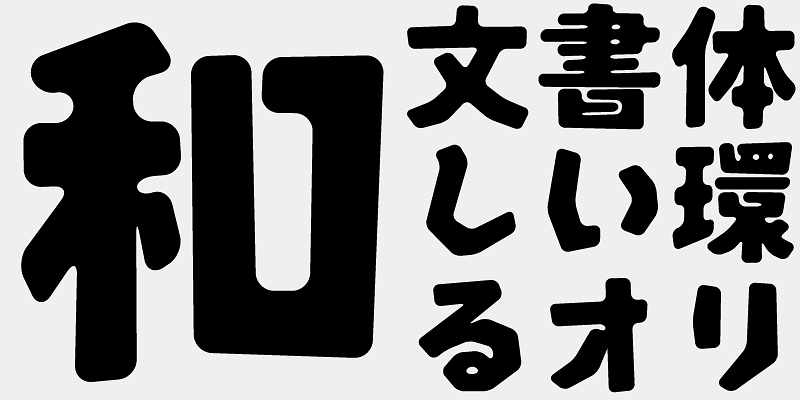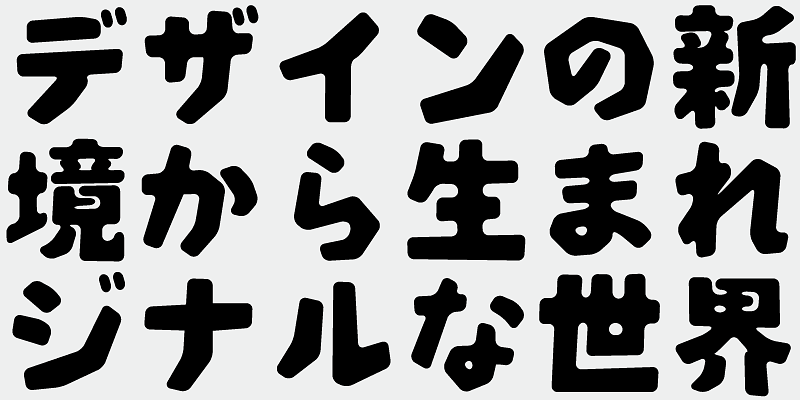
Part of the AB-Showa family, this is a relaxed gothic with rounded corners.
This font includes the top 1,000 kanji characters selected from usage frequency lists compiled by newspaper companies, publishers, and the National Institute for Japanese Language and Linguistics, plus 206 additional characters such as kana, alphanumerics, and carefully selected symbols and punctuation marks.